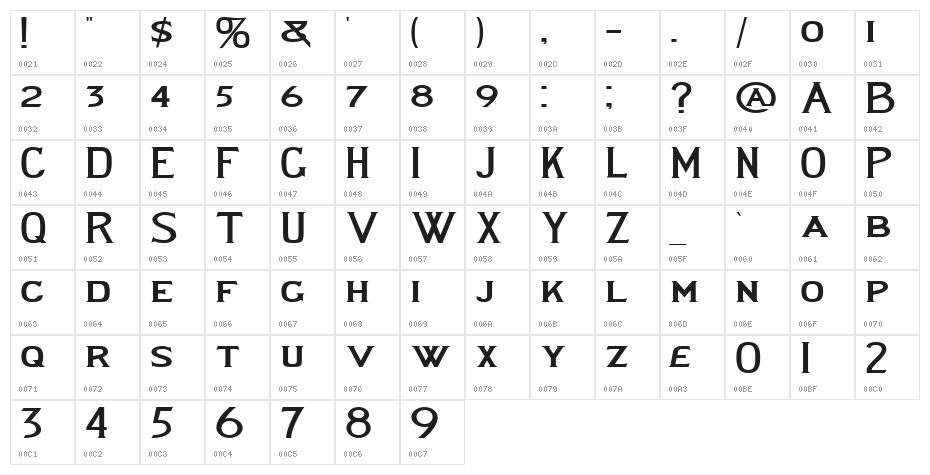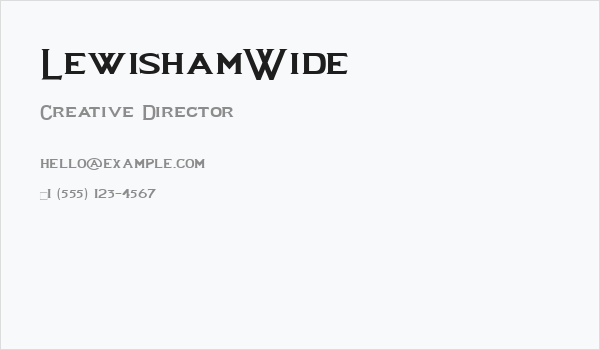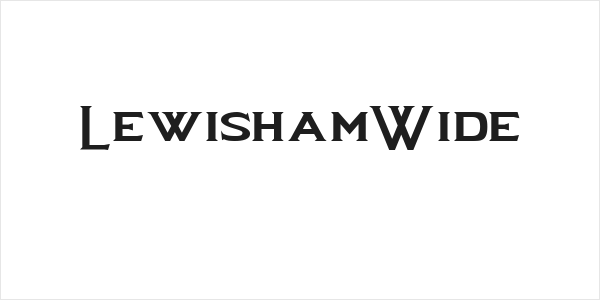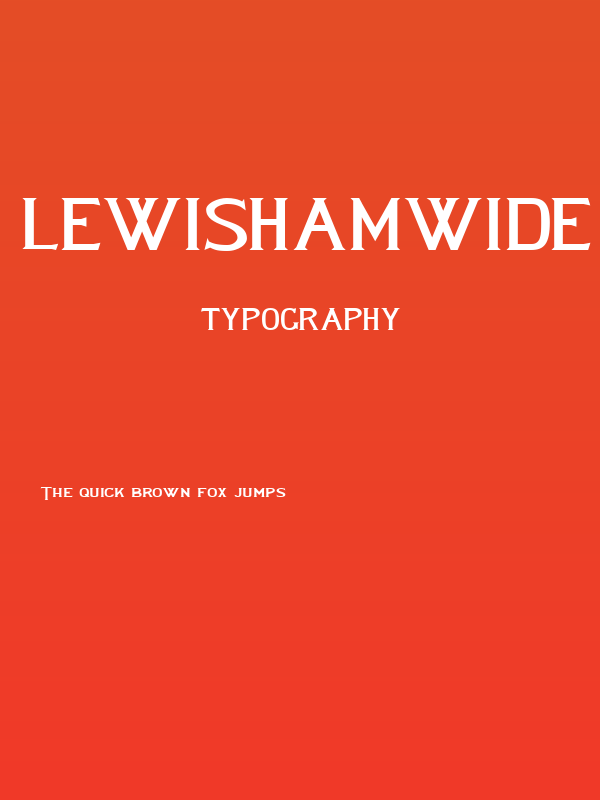
LewishamWide Font
LewishamWide Description
This font features a wide and expansive design, characterized by its bold and uniform stroke width. The characters are evenly spaced, providing a clean and structured appearance. The uppercase letters are prominent and commanding, while the lowercase letters maintain a consistent style that complements the overall design. The numerals are clear and easy to read, making them suitable for various applications. The special characters are distinct and well-integrated into the font's aesthetic, ensuring versatility in usage. This font's modern and sleek style makes it ideal for contemporary design projects.
Paul Lloyd Fonts
| Proposed Projects | Ideal for branding, advertising, and digital media projects that require a strong visual impact. |